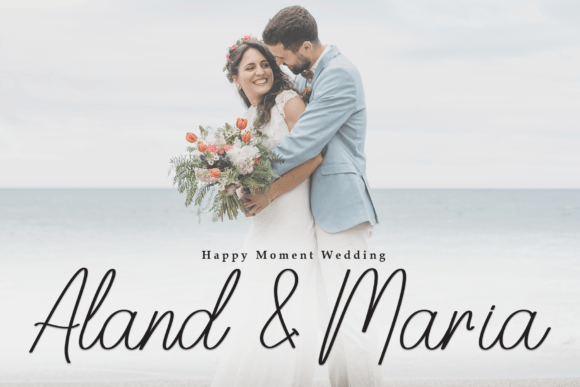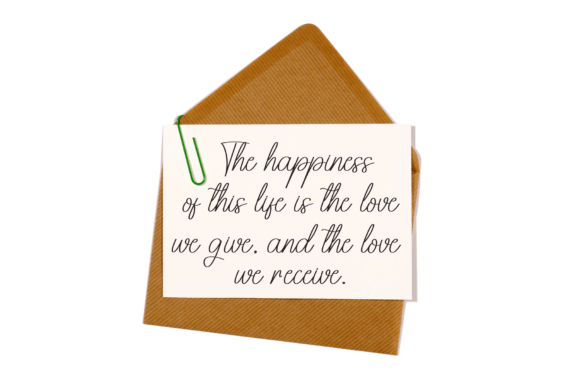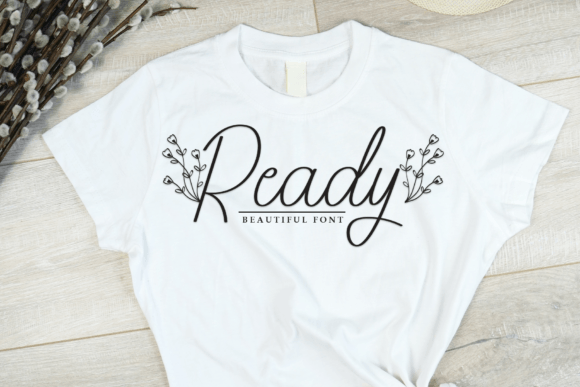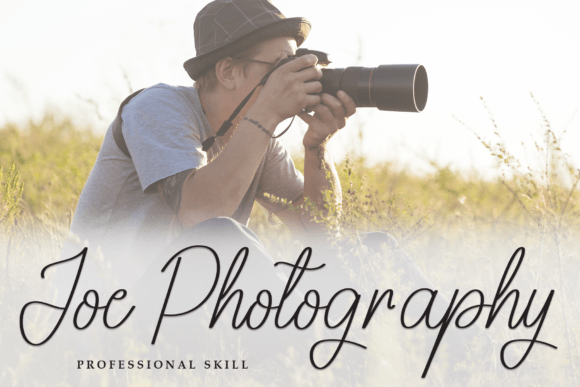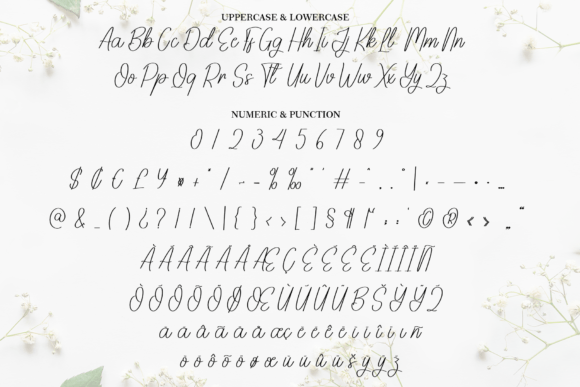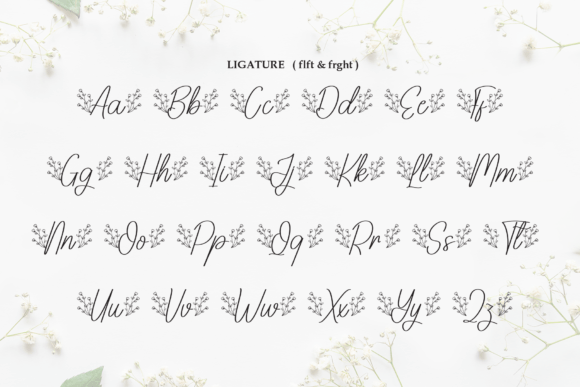
The Blooming Beauty of Bloomday Font
As a designer, there’s nothing quite like the thrill of brainstorming a new project. The blank canvas stares back at you, waiting for your creative spark to ignite. For me, that spark often begins with a single font – one that sets the tone for the entire design. And, I have to say, I’ve recently fallen in love with Bloomday Font, a whimsical and enchanting typeface that exudes a sense of joy and elegance.
With its delicate flourishes and graceful letterforms, Bloomday Font is the perfect addition to any project that needs a touch of floral beauty. Whether you’re creating greeting cards, invitations, or feminine designs, this script font is sure to bloom with artistic flair. And, for designers, its versatility and charm make it a valuable asset to have in your toolkit.
Bloomday Font Key Features
- Unique Characteristics: Bloomday Font features a unique, hand-drawn design with a mix of organic and geometric elements, giving it a distinctive and eye-catching appearance.
Bloomday Font Review
I’ve had the chance to work with the Bloomday Font, and here’s my honest take on it.
- The Bloomday Font has a unique and playful aesthetic that can add a lot of character to your designs.
- The font is highly legible, even at smaller sizes, making it a great choice for body text or captions.
- The font’s high x-height makes it suitable for use in digital interfaces and print materials.
- The font may not be the best choice for formal or professional designs, as it has a more casual and whimsical feel.
- The font’s range of weights and styles is limited, which may make it harder to create complex typography systems.
- The font’s kerning and ligatures could be improved for better readability.
The Bloomday Font is a great choice for designers looking to add some personality to their projects. While it may not be suitable for every design, its unique aesthetic and high legibility make it a great addition to any font library.
Bloomday Font: A Practical Application Guide
Tips for Getting the Most Out of the Bloomday Font
Experiment with different font sizes and colors to create visual interest. Pair the Bloomday Font with other elegant fonts for a sophisticated look. Use it for titles, headings, or body text to add a touch of elegance to your design.
The Bloomday Font is perfect for:
- Wedding websites and social media graphics
- Any design project requiring a touch of elegance
Alternative Fonts to Bloomday Font
Great Vibes is a beautiful, cursive script font that is perfect for creating a whimsical and elegant look. It is ideal for use in invitations, posters, and other design elements where a touch of sophistication is desired. In comparison to Bloomday Font, Great Vibes has a more refined and intricate design, making it suitable for high-end designs.
Carolyna Pro is a modern, elegant script font that is ideal for use in high-end designs, such as branding, packaging, and advertising. It has a more refined and polished look compared to Bloomday Font, making it suitable for luxury brands and designers who want to create a sophisticated look.
Q: What is the recommended font size for optimal readability with Bloomday Font?
The recommended font size for optimal readability with Bloomday Font is between 12pt and 18pt, depending on the context and design requirements. At smaller font sizes, the font may become difficult to read. For digital displays, a font size of 14pt or 16pt is recommended to ensure readability on various devices.